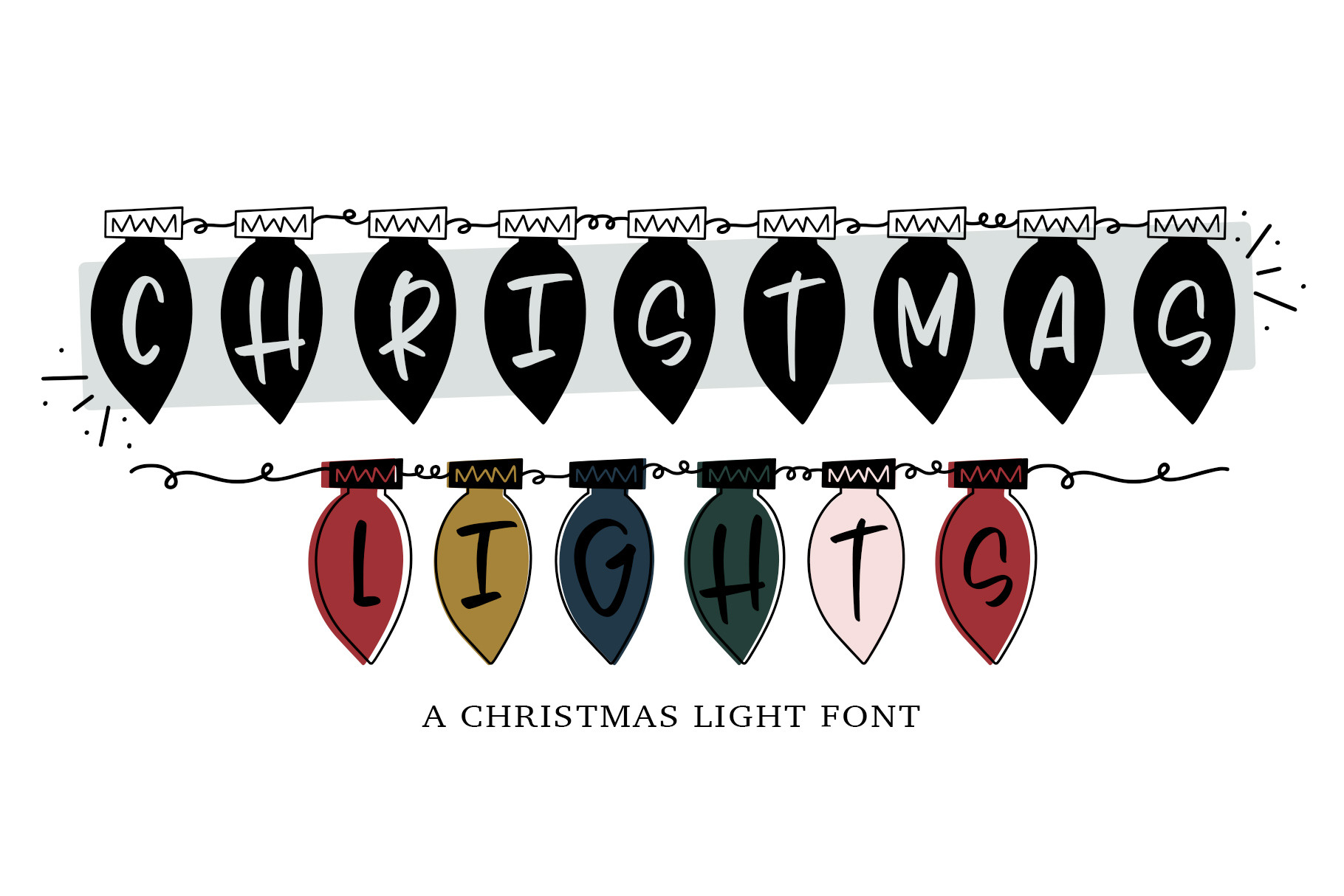
Christmas Lights - A Holiday Font
A fun + cute Christmas light font you can use for your holiday designs this season!
This font can be used for wood signs, crafting projects, Christmas decoration, vinyl cut outs, mugs, and so much more!
There are two sets of lights included - regular and solid! There are 7 different line/wire transitions in between lights, 2 different wire endings, 3 cute doodles, and 3 pairs of light decorations.